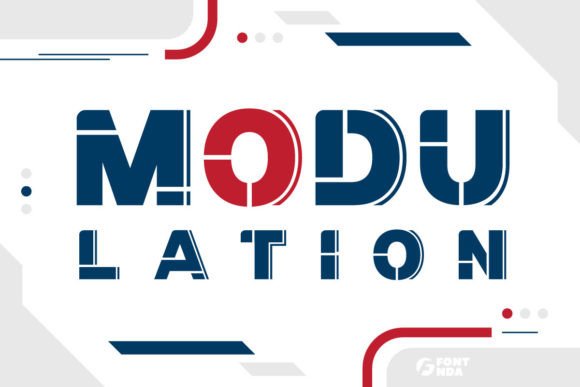
Welcome to the realm of Modulation Font, where boldness meets elegance! Prepare to be mesmerized by its captivating, geometric shapes and sharp edges that ignite visual intrigue. This display font is not just a font; it's a statement of individuality, designed to capture attention and make your messages shine.
Modulation Font is a game-changer for apparel brands, offering a striking visual presence that sets your designs apart. Its clean, contemporary lines exude a sense of sophistication that elevates your branding to new heights of style. Whether you're crafting logos, slogans, or eye-catching graphics, Modulation Font ensures that your message resonates with power and finesse.
Immerse yourself in the world of Modulation Font and discover its versatility. From delicate curves to bold angles, this font family offers endless possibilities for creative expression. Whether you're a graphic designer seeking unique typography or a business owner seeking a distinct brand identity, Modulation Font is your perfect partner. Its adaptability shines in both digital and print media, ensuring that your designs shine across platforms.